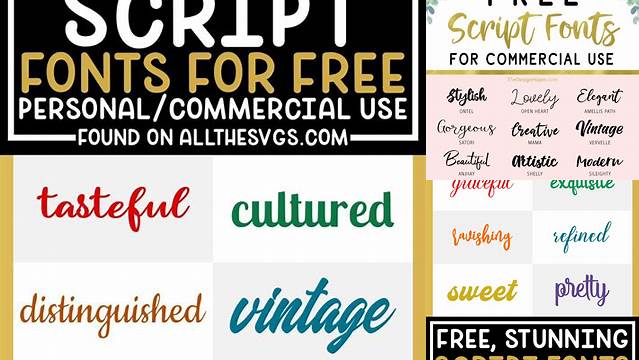
Free Cursive Fonts For Commercial Use
Choosing the right font can make or break a design, especially when it comes to projects intended for commercial use. You need a font that not only looks fantastic but also comes with the proper licensing. This article dives deep into the world of free cursive fonts for commercial use, ensuring you have the tools you need without worrying about legal hassles. Guys, let's explore the best options out there and how to use them effectively!
Cursive Fonts 101: What You Need to Know
Before we jump into the list, let’s quickly cover the basics. Cursive fonts, also known as script fonts, mimic handwriting. They're elegant, flowing, and can add a touch of sophistication or personality to your designs. But remember, not all cursive fonts are created equal, especially regarding licensing. Free cursive fonts for commercial use must have licenses that explicitly allow them to be used in projects you intend to sell or profit from. Always, and I mean always, double-check the license before using a font commercially. Ignoring this can lead to serious legal issues down the road. Think of it like this: you wouldn’t want someone using your work without permission, right? Same goes for fonts!
Types of Cursive Fonts: A Quick Overview
Cursive fonts come in various styles, each with its own unique vibe. You've got your formal scripts, which are elegant and often used in wedding invitations or high-end branding. Then there are the more casual scripts, perfect for logos, social media graphics, and anything that needs a personal touch. Free cursive fonts for commercial use span across this spectrum, so you're bound to find something that fits your project. Understanding these nuances is crucial in selecting the right font. For instance, a playful, bouncy script might not be the best choice for a serious corporate document, while a formal script could feel out of place in a fun, youthful design. Think about the message you want to convey and choose a font that aligns with it.
Why Commercial Use Licenses Matter
Where to Find Free Cursive Fonts for Commercial Use
Top 30 Free Cursive Fonts for Commercial Use
1. Elegant Free Cursive Fonts for Commercial Projects
When you're working on a commercial project that requires a touch of elegance and sophistication, selecting the right cursive font is crucial. The best free cursive fonts for commercial use in this category often mimic traditional calligraphy, with flowing lines and delicate strokes. These fonts are perfect for wedding invitations, high-end branding, and other projects where you want to convey a sense of luxury and refinement. Think about fonts that have a classic, timeless appeal. They should be easy to read, even with their intricate details. Some popular examples include Great Vibes, Alex Brush, and Allura, all of which are available under open-source licenses that allow for commercial use. These fonts can elevate your design, giving it a polished and professional look. Remember, the key to elegance is subtlety, so choose a font that enhances your design without overwhelming it. Experiment with different weights and sizes to find the perfect balance for your specific needs. Consider how the font pairs with other elements in your design, such as images and colors. A well-chosen cursive font can be the finishing touch that makes your project truly stand out.
2. Modern Cursive Fonts Free for Commercial Use
In the realm of modern design, free cursive fonts for commercial use offer a fresh twist on traditional calligraphy. These fonts often feature cleaner lines, simpler forms, and a contemporary feel. They're ideal for branding, websites, and marketing materials that aim for a stylish and up-to-date look. Modern cursive fonts can range from slightly whimsical to sleek and minimalist, providing a wide range of options to suit different design aesthetics. Look for fonts that have a unique character but maintain readability, especially when used in body text. Some excellent examples include Pacifico, Dancing Script, and Roboto Slab, which offer a blend of personality and clarity. These fonts can add a touch of individuality to your project without sacrificing professionalism. When using modern cursive fonts, consider how they interact with other fonts and design elements. Pairing them with a clean sans-serif font can create a striking contrast and enhance the overall visual appeal. Experiment with different font combinations to achieve the desired effect. A modern cursive font can be the perfect way to inject personality into your commercial projects, helping you create a memorable and impactful design.
3. Best Free Cursive Fonts for Logos Commercial Use
Your logo is the face of your brand, so choosing the right font is paramount. Free cursive fonts for commercial use can add a touch of personality and uniqueness to your logo, making it stand out from the crowd. However, not all cursive fonts are suitable for logos. You need a font that is legible, memorable, and scalable. Look for fonts with strong, distinct letterforms that will retain their clarity even at small sizes. Script fonts like Signika, Lobster, and Montserrat offer a good balance of style and readability. These fonts can convey a sense of creativity, warmth, or sophistication, depending on the overall brand identity. When using a cursive font in your logo, consider the message you want to communicate. A flowing, elegant script might be perfect for a luxury brand, while a bolder, more playful script could be better suited for a creative business. Experiment with different font pairings and color schemes to create a logo that truly reflects your brand. Remember, your logo is your visual signature, so choose a font that is both beautiful and functional.
4. Free Cursive Fonts for Wedding Invitations Commercial
Wedding invitations are all about elegance and romance, making cursive fonts a natural choice. Free cursive fonts for commercial use in this category need to be particularly refined and graceful. Think about fonts that evoke a sense of timeless beauty and sophistication. Calligraphy-inspired fonts, with their flowing strokes and delicate flourishes, are ideal for creating a luxurious and memorable invitation. Some popular options include Great Vibes, Alex Brush, and Allura, which offer a classic and elegant look. These fonts can transform a simple invitation into a cherished keepsake. When selecting a cursive font for wedding invitations, consider the overall theme and style of the wedding. A formal script might be perfect for a traditional wedding, while a more modern script could be better suited for a contemporary celebration. Pay attention to the readability of the font, especially for important details like names and dates. Experiment with different font sizes and spacing to ensure the invitation is easy to read and visually appealing. Remember, your wedding invitation is the first glimpse your guests will have of your special day, so choose a font that sets the right tone.
5. Free Cursive Fonts for Commercial Use on Websites
Using cursive fonts on websites can add a touch of personality and visual interest, but it's important to do it strategically. Free cursive fonts for commercial use in web design need to be legible and perform well across different browsers and devices. Avoid using overly elaborate or decorative scripts, as they can be difficult to read on screen. Instead, opt for fonts with clean, clear letterforms that maintain their clarity at various sizes. Fonts like Pacifico, Dancing Script, and Montserrat offer a good balance of style and readability for web use. These fonts can be used for headings, subheadings, or accent text to add a touch of flair without sacrificing usability. When incorporating cursive fonts into your website design, consider the overall user experience. Make sure the font is large enough to read comfortably and that the contrast between the text and background is sufficient. Test your website on different devices to ensure the font renders correctly and doesn't slow down page loading times. Remember, the goal is to enhance your website's visual appeal without compromising its functionality.
6. Best Free Script Fonts for Commercial Use
When discussing cursive fonts, it's essential to clarify that "script" fonts are essentially the same thing. The terms are often used interchangeably. Therefore, finding the best free script fonts for commercial use is the same as finding the best free cursive fonts. The key factors to consider remain the same: legibility, style, and the specific license terms for commercial applications. You want to ensure you're using a font that not only looks great but also allows you to use it in your commercial projects without legal concerns. Explore options like those mentioned previously – Great Vibes, Pacifico, Dancing Script – and always double-check the licensing information on sites like Google Fonts or Font Squirrel.
7. Free Calligraphy Fonts for Commercial Use
Calligraphy fonts are a subset of cursive fonts, specifically designed to mimic the art of hand lettering. If you're looking for free calligraphy fonts for commercial use, you're likely seeking fonts with a particularly elegant and refined aesthetic. These fonts are often ideal for projects like wedding invitations, high-end branding, and any design where a touch of classic artistry is desired. Fonts like Allura, Alex Brush, and Windsong are excellent choices in this category, offering beautiful, flowing letterforms that evoke a sense of handcrafted quality. Again, confirming the commercial use license is crucial before incorporating these into your designs.
8. Free Cursive Fonts for T-Shirt Design Commercial Use
Designing t-shirts for commercial purposes requires fonts that are both visually appealing and durable enough to withstand the printing process. Finding free cursive fonts for t-shirt design commercial use means considering factors like boldness, clarity, and how the font will look when applied to fabric. Thicker, more robust script fonts tend to work best on t-shirts, as delicate lines may get lost in the printing process. Fonts like Lobster or a bolder variant of Pacifico can be effective choices. Always create a test print to see how the font translates onto the fabric before committing to a large production run. And, as always, verify the commercial use license.
9. Free Cursive Fonts for Business Cards Commercial Use
Your business card is often the first impression you make, so choosing the right font is essential. Free cursive fonts for business cards commercial use need to be legible even at small sizes, while still conveying a sense of professionalism and brand identity. A font that is too ornate or difficult to read can undermine your message. Opt for cleaner, more streamlined cursive fonts, such as a slightly stylized version of Montserrat or a clear script like Signika. The key is to balance style with readability, ensuring your contact information is easily accessible. Double-check the commercial license to ensure you can use the font on your business cards.
10. Free Cursive Fonts for Commercial Use Download
When looking to free cursive fonts for commercial use download, it's crucial to use reputable sources to avoid malware or licensing issues. Websites like Google Fonts and Font Squirrel are excellent options, as they offer a curated selection of high-quality fonts with clear commercial use licenses. DaFont can also be a resource, but you'll need to carefully review the license for each individual font. Always download fonts directly from the designer's website or a trusted font repository to ensure you're getting a safe and legal product. Avoid third-party download sites that may bundle fonts with unwanted software or have unclear licensing terms.
11. Best Free Handwritten Fonts for Commercial Use
Handwritten fonts offer a more casual and personal feel compared to traditional cursive fonts. Finding the best free handwritten fonts for commercial use involves looking for fonts that mimic natural handwriting styles while remaining legible and versatile. These fonts can be great for branding projects that aim for a more approachable or artistic aesthetic. Consider fonts with varying stroke thicknesses and natural-looking imperfections to enhance the handwritten effect. Options like Permanent Marker or Patrick Hand are worth exploring, but always confirm the commercial use license.
12. Free Cursive Fonts for Cricut Commercial Use
If you're using a Cricut machine for commercial projects, such as creating personalized gifts or crafts, you'll need fonts that are compatible with the software and cut cleanly. Free cursive fonts for Cricut commercial use should have smooth lines and avoid overly intricate details that can be difficult for the machine to cut. Simpler scripts and bolder cursive fonts tend to work best. Before committing to a project, always do a test cut to ensure the font translates well into a physical product. Don't forget to check the commercial use license to ensure you can legally sell your Cricut creations using the font.
13. Free Cursive Fonts for Procreate Commercial Use
Procreate is a popular digital illustration app, and using cursive fonts in your Procreate designs can add a unique touch. When searching for free cursive fonts for Procreate commercial use, you'll need to ensure the fonts are compatible with the app and that you have the right to use them in your commercial projects. Many of the same principles apply as with other commercial uses: legibility, style, and licensing. Google Fonts is a great resource for Procreate users, as you can easily download fonts and import them into the app. Remember to always verify the commercial use license before incorporating a font into a design you intend to sell.
14. Free Cursive Fonts for Canva Commercial Use
Canva is a user-friendly graphic design platform, and it offers a range of fonts for its users. However, if you want to use external fonts in Canva, you need to ensure they have a commercial use license. Finding free cursive fonts for Canva commercial use means looking for fonts that you can upload and use in your Canva designs without infringing on copyright. Google Fonts is an excellent source, as many of its fonts are compatible with Canva and come with clear commercial use licenses. Always double-check the licensing terms before using a font in your Canva projects, especially if you plan to use them for commercial purposes.
15. Free Cursive Fonts for Commercial Use Mac
The operating system you use, whether it's a Mac or Windows, doesn't inherently change the availability of free cursive fonts for commercial use. The key is still finding fonts with the appropriate licenses. When searching for free cursive fonts for commercial use Mac, you're essentially looking for the same fonts you'd use on any platform, ensuring they are compatible with your Mac's font management system. Google Fonts, Font Squirrel, and other reputable sources offer fonts that work seamlessly on Macs. Just remember to verify the commercial use license before incorporating them into your projects.
16. Free Cursive Fonts for Commercial Use Windows
Similar to Mac users, Windows users need to focus on finding fonts with the correct licenses when looking for free cursive fonts for commercial use Windows. The operating system itself doesn't dictate the font's license. You can use the same reputable sources like Google Fonts and Font Squirrel to find a wide variety of cursive fonts that are compatible with Windows. Always double-check the commercial use terms before using a font in a project you plan to sell or profit from.
17. Free Cursive Fonts for Cricut Design Space Commercial Use
Cricut Design Space is the software used with Cricut cutting machines, and it has its own set of requirements for fonts. Finding free cursive fonts for Cricut Design Space commercial use means ensuring the fonts are compatible with the software and can be cut cleanly by the machine. As mentioned before, simpler scripts and bolder cursive fonts tend to work best for cutting. Always do a test cut to verify the font's suitability before committing to a larger project. And, of course, confirm the commercial use license to ensure you can legally sell items made with the font.
18. Free Cursive Fonts for Silhouette Commercial Use
Silhouette is another popular cutting machine, and it uses its own software, Silhouette Studio. When searching for free cursive fonts for Silhouette commercial use, the same principles apply as with Cricut: compatibility, cut quality, and licensing. Look for fonts with smooth lines and avoid overly intricate details. Do a test cut to ensure the font works well with your Silhouette machine. Always verify the commercial use license before using a font in a project you intend to sell.
19. Free Cursive Fonts for Commercial Use License
Understanding font licenses is crucial when you're working on commercial projects. When you see the phrase free cursive fonts for commercial use license, it means the font comes with a license that explicitly allows you to use it in projects where you're making money. This typically includes things like logos, websites, merchandise, and marketing materials. Common licenses that permit commercial use include the SIL Open Font License (OFL) and some Creative Commons licenses. Always read the license agreement carefully to understand the specific terms and conditions. If you're unsure, it's best to contact the font designer or foundry for clarification.
20. How to Install Free Cursive Fonts for Commercial Use
Installing free cursive fonts for commercial use is a straightforward process, but it can vary slightly depending on your operating system. On Windows, you typically download the font file (usually a .ttf or .otf file), right-click it, and select "Install." On a Mac, you can double-click the font file and then click "Install Font" in the Font Book application. After installing the font, it should be available in your design software. If you're using a web-based platform like Canva, you may need to upload the font to your account. Always ensure you've downloaded the font from a reputable source and that you have the right to use it commercially before installing it.
21. Pairing Free Cursive Fonts for Commercial Use
Using cursive fonts effectively often involves pairing them with other fonts. Finding the right font pairings can elevate your design and improve readability. When pairing free cursive fonts for commercial use, it's generally best to combine them with a simpler font, such as a sans-serif or a clean serif font. This creates a visual contrast that makes the cursive font stand out while maintaining overall legibility. For example, you could pair a cursive font like Pacifico with a sans-serif font like Open Sans or Montserrat. Experiment with different combinations to find what works best for your project. Consider the overall tone and style of your design when choosing font pairings.
22. Free Cursive Fonts with Swashes for Commercial Use
Swashes are decorative extensions or flourishes added to certain letters in a font. Free cursive fonts with swashes for commercial use can add an extra touch of elegance and personality to your designs. These fonts are often used for wedding invitations, logos, and other projects where a sense of luxury or artistry is desired. However, it's important to use swashes sparingly, as too many can make the text difficult to read. When using swash fonts, consider which letters have the most visually appealing swashes and use them strategically. Always double-check the commercial use license before using a swash font in a project you plan to sell.
23. Free Cursive Fonts for Names Commercial Use
Using cursive fonts for names in commercial projects can create a personal and memorable touch. Whether you're designing logos, monograms, or personalized products, finding free cursive fonts for names commercial use is essential. Choose a font that is both legible and stylish, and consider the overall brand identity or aesthetic you're trying to convey. More elegant scripts are perfect for formal settings, while more modern or playful scripts can be used for creative and informal settings. Be sure the letters in the font are clear and distinct enough that any name is easily read. Always remember to confirm the commercial use license before incorporating a font into a project with names you are selling or marketing.
24. Free Cursive Fonts for Quotes Commercial Use
Cursive fonts can be a great choice for displaying quotes in commercial designs, such as posters, social media graphics, or merchandise. When looking for free cursive fonts for quotes commercial use, prioritize legibility and readability, particularly if the quote is lengthy. Choose a font that is easy on the eyes and complements the meaning and tone of the quote. More elegant and traditional scripts work well for serious or inspirational quotes, while modern scripts can be used for more light-hearted or contemporary messages. Make certain that the letters in the selected font are clear and visually appealing to the audience. And, before proceeding, always verify the commercial usage of the font to make certain that the legal compliance is maintained.
25. Free Cursive Fonts for Watermarks Commercial Use
Watermarks are often used to protect digital content, and a cursive font can add a stylish touch to your watermark. Free cursive fonts for watermarks commercial use need to be subtle enough not to distract from the content being protected, yet legible enough to be easily identifiable. Choose a font that is clean and not overly ornate and ensure it remains clear at varying sizes and opacity levels. Watermarks should also appear polished and unobtrusive to the content they are guarding, so always check its impact to avoid causing any distractions. Always ensure you have the commercial use rights to the font before using it in a watermark, particularly if you are using the watermark to protect content that is used for business.
26. Best Free Cursive Fonts for Graphic Design Commercial Use
Graphic design requires a versatile selection of fonts, and cursive fonts can add a special touch to your projects. Finding the best free cursive fonts for graphic design commercial use means considering diverse aspects: legibility, style, and usefulness across various design mediums. Whether it's for branding, web design, or marketing materials, choose fonts that mix well with other fonts and design elements. It's always good to keep a mix of modern and classic styles in your arsenal so as to cater different scenarios appropriately. Before including a font in your commercial designs, it's key to confirm the commercial use permissions to avoid any legal problems.
27. Free Cursive Fonts for Commercial Use OTF
OTF (OpenType Font) is a font file format that is scalable and supports advanced typographic features. Finding free cursive fonts for commercial use OTF indicates you are seeking fonts in this specific format, which is widely compatible and often preferred for its quality. Make certain the websites where you find and download the font are reputable, as mentioned previously. The OTF format also enables better design control and greater legibility across several platforms and media. Before you start selling a business, remember to check the commercial usage to ensure complete legal compliance.
28. Free Cursive Fonts for Commercial Use TTF
TTF (TrueType Font) is another popular font file format. Seeking free cursive fonts for commercial use TTF indicates you want fonts in this format, which is widely supported and easy to install. TTF fonts are versatile and work well for various projects, especially where cross-platform compatibility is a concern. Always download fonts from reliable sources, so you do not receive any malicious software. Make certain the font is compatible in your design environment as well. Similar to OTF files, commercial licenses must be reviewed before usage, regardless of file type.
29. Free Monoline Cursive Fonts for Commercial Use
Monoline cursive fonts feature consistent stroke thickness throughout their characters, giving them a clean and modern look. Seeking free monoline cursive fonts for commercial use suggests you are looking for scripts that provide simplicity and clarity, which can be ideal for logos, minimalist designs, or projects needing a streamlined look. Such fonts ensure that the stroke width remains the same, offering a harmonious and easily readable typeface. Make sure a license is commercially viable, especially in cases involving business ventures, to avoid any sort of legal complications going forward.
30. Free Bold Cursive Fonts for Commercial Use
Bold cursive fonts have a heavier weight, making them stand out and perfect for headlines or emphasis. When you are in search of free bold cursive fonts for commercial use, it's typically for scenarios requiring more impact and visibility. A thicker stroke can easily attract an audience for signage, branding, or titles, giving it a memorable presence in a project. Before you incorporate these bold fonts into business designs, make sure that licenses allow for commercial usage, thus ensuring that your bold choice stays legally protected and creatively sound. Always ensure compliance, particularly whenever financial gains are involved.